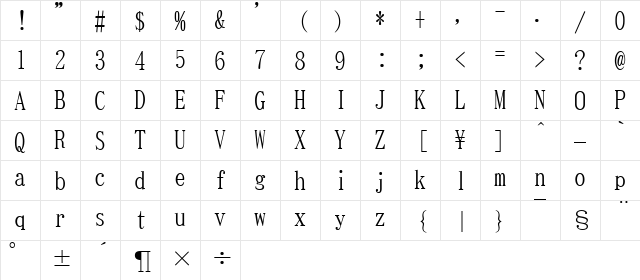
FCL Regular
Design Context for FCL
FCL is a composed and adaptable typeface that performs quietly and consistently across a wide range of design contexts.